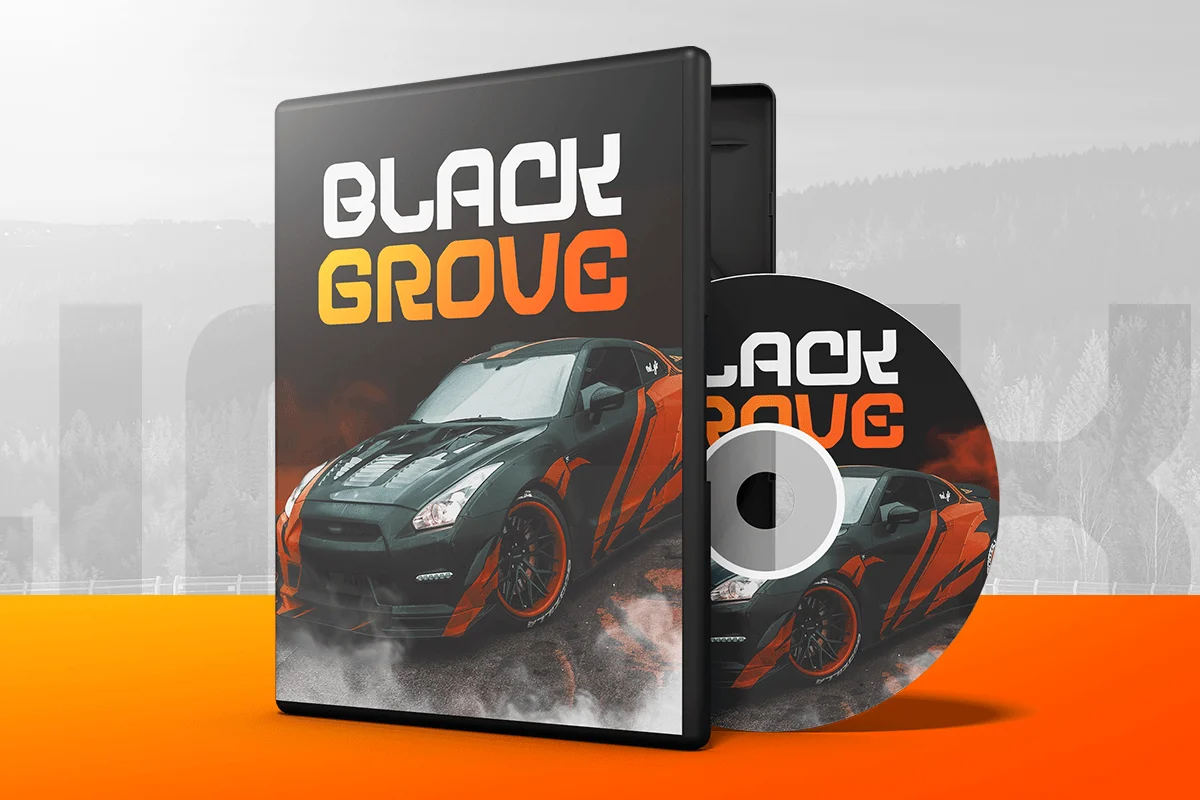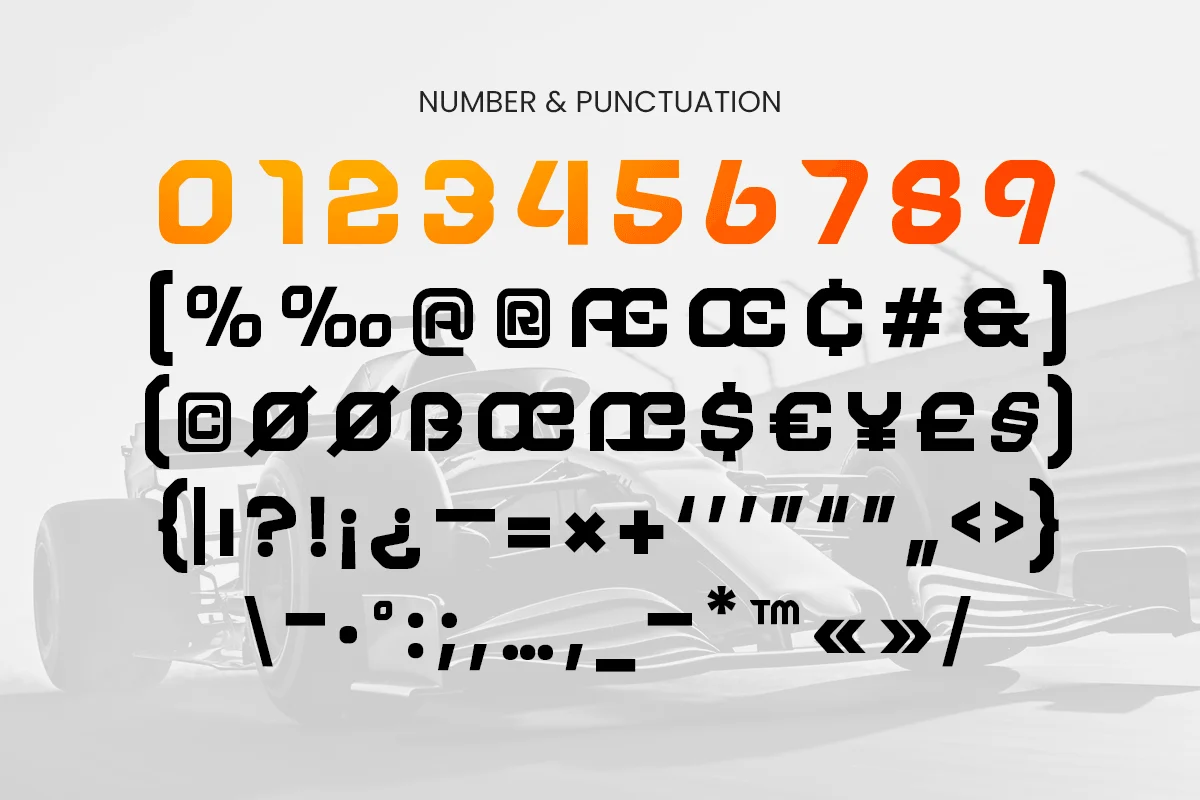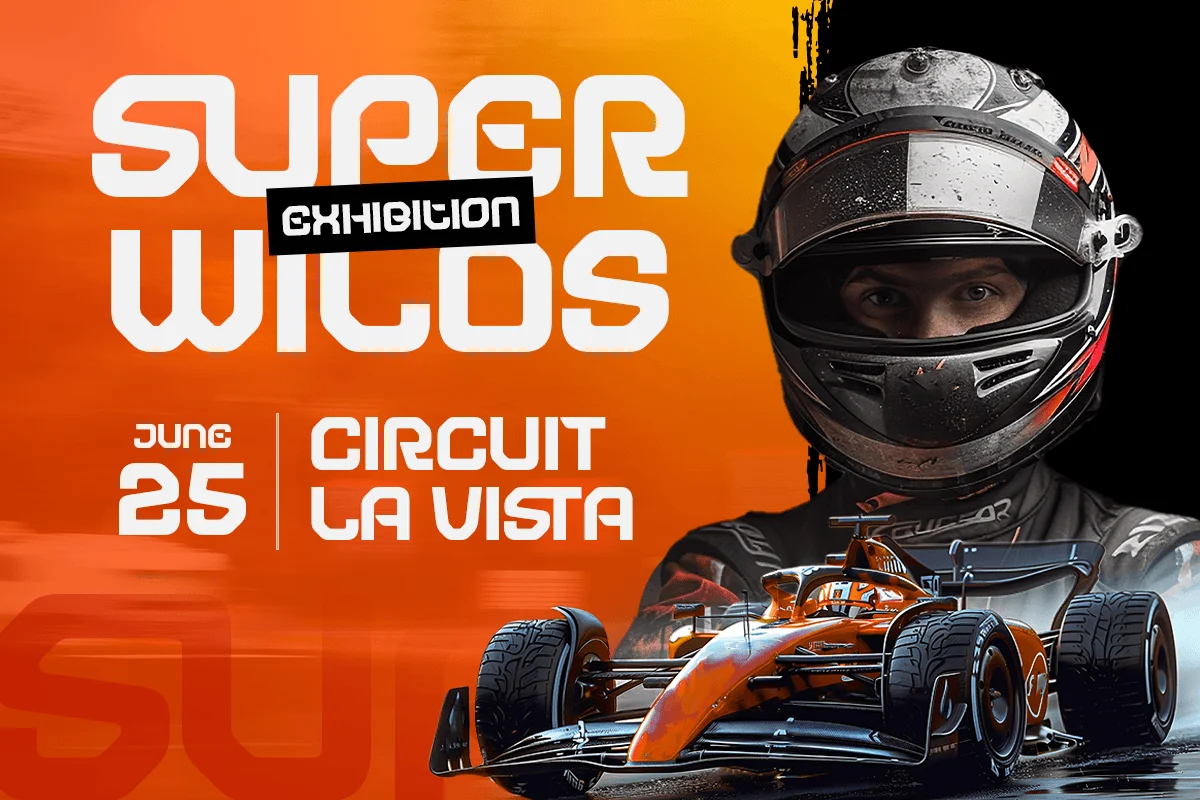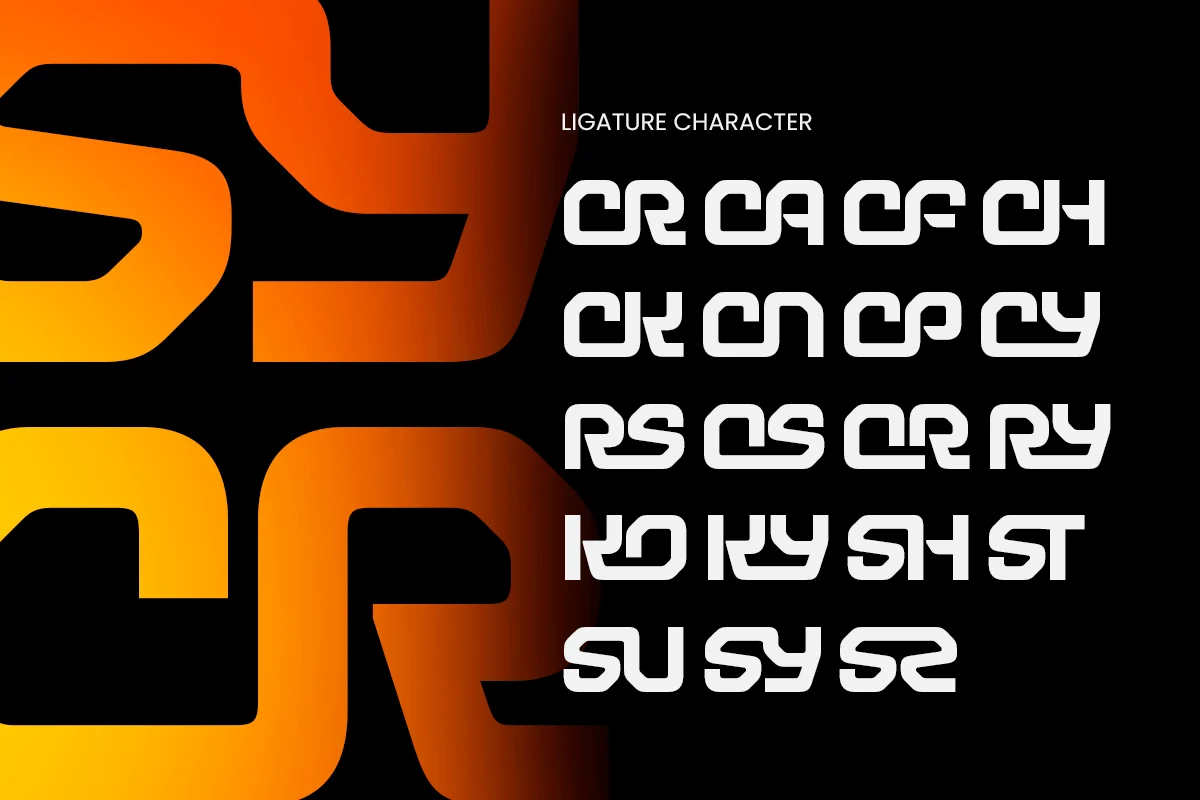
Crossfit – Modern Sport Racing Font
CROSSFIT is a unique modern sport racing font designed to deliver speed, strength, and competitive energy in every letter. With bold structure, sharp rhythm, and a dynamic racing-inspired style, this typeface creates a powerful visual tone that feels fast, athletic, and instantly attention-grabbing.
Built for high-impact branding, CROSSFIT works beautifully across sports logos, racing posters, fitness campaigns, event banners, team identities, website headers, social media graphics, signage, and promotional visuals. Its modern display structure keeps every headline strong and readable while adding motion, confidence, and performance-driven character across both digital and print layouts.
Whether you’re creating a racing event identity, building a fitness brand, designing athletic promotions, or crafting bold competitive visuals, CROSSFIT provides a fast typographic foundation that makes your design feel energetic, modern, and unforgettable.
Inspiration Behind CROSSFIT
CROSSFIT is inspired by modern racing graphics and athletic branding—where speed, power, and sharp movement define the visual language. The design focuses on dynamic structure, bold rhythm, and sporty precision to support competitive branding, racing headlines, and high-performance design systems.
CROSSFIT Font Features:
- Unique modern sport racing letterforms with bold athletic character
- Perfect for racing logos, sports branding, and performance headlines
- Strong readability for posters, banners, and competitive campaigns
- Dynamic structure for speed-driven and energetic typography
- OpenType features for polished professional typesetting
- Racing logos, sport branding, and athletic identity systems
- Fitness campaigns, tournament posters, and event promotions
- Team graphics, motorsport visuals, and competitive headlines
- Website headers, social media graphics, and digital ads
- Signage, banners, and high-energy marketing layouts
Bring speed and strength to your visuals with CROSSFIT—a modern sport racing font built for bold competitive impact. ⚡